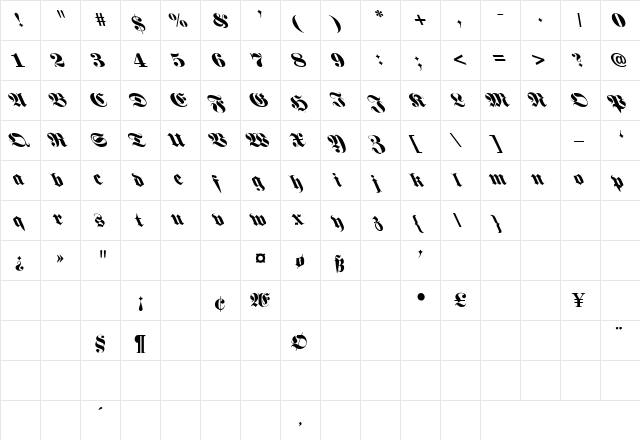
Fette Fraktur-Semi Bold Lefty Regular
Design Context for Fette Fraktur-Semi Bold Lefty Typeface
Fette Fraktur-Semi Bold Lefty channels the dramatic heritage of Fraktur and Gothic scripts, bringing a sense of historical gravitas to any design. The heavy weight commands attention and anchors typographic hierarchies.
A natural fit for music packaging, gothic editorial design, and any project that needs historical weight.
Font Pairing: Pair with a clean neutral sans-serif for body copy to let Fette Fraktur-Semi Bold Lefty's character lead without overwhelming the composition.
Pro Tip: Reserve Fette Fraktur-Semi Bold Lefty for display and logo use — pair it with a clean sans-serif for body copy to prevent the composition from feeling oppressive.